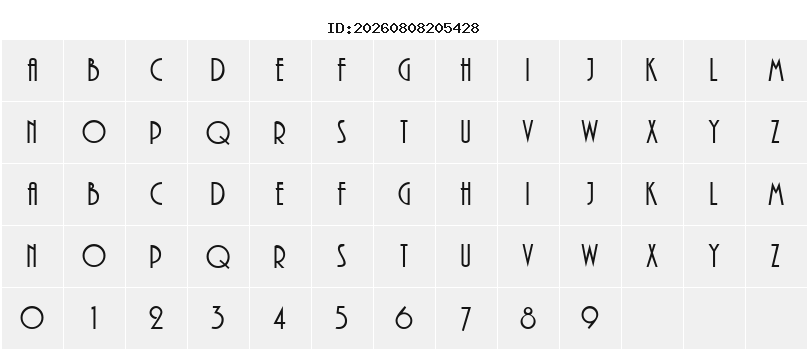
PlainDB Preview
• Font Name: PlainDB
• Font ID: Altsys Fontographer 4.0.3 PlainDB Normal
• Full Font Name: PlainDB Normal
• Version: Altsys Fontographer 4.0.3 9.9.1994
• PostScript Name: PlainDBNormal
• Character Count: 216
About PlainDB.ttf
PlainDB.ttf is a modern, elegant sans-serif font designed for ultimate readability and visual harmony. Perfect for branding, headlines, web design, and print materials.